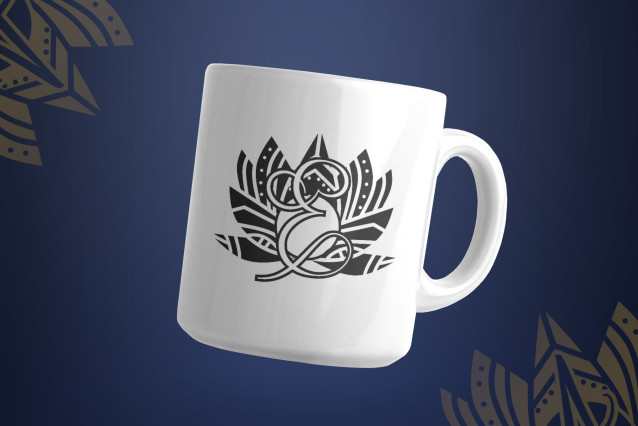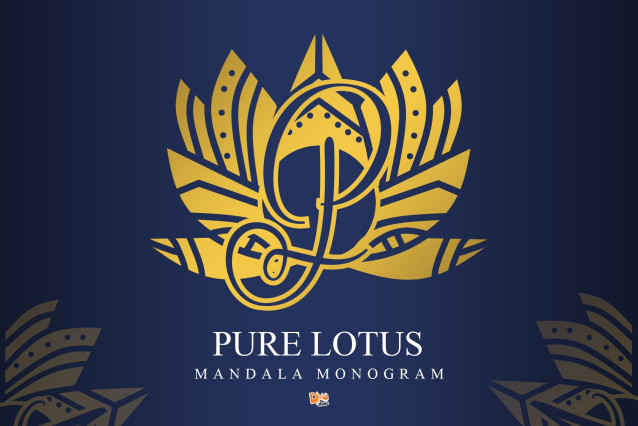
Pure Lotus Mandala Monogram Font
Pure Lotus Mandala Monogram is a refined and minimalistic monogram font that blends the serenity of the lotus flower with the intricate artistry of mandala patterns. Designed with clean lines and graceful balance, it’s perfect for luxury branding, minimalist wedding invitations, wellness products, and spiritual content. Its pure and harmonious aesthetic makes it a beautiful fit for both modern and traditional designs.